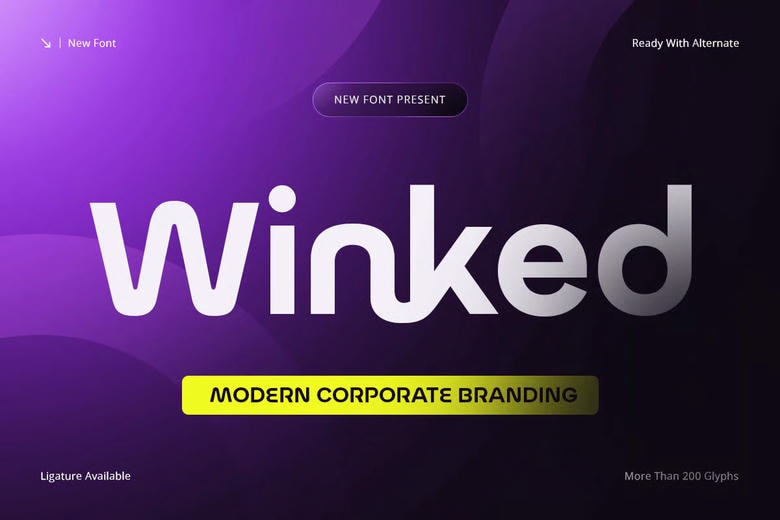
Winked Font
Winked Font is a modern display typeface made to help businesses build a strong, trustworthy, and up-to-date brand image. It takes inspiration from today’s corporate identity systems and clean business typography, making it a great fit for brands that want clarity, consistency, and professionalism.
Winked features refined letter shapes, balanced proportions, and a modern look, giving your brand a polished appearance. Its clean and flexible design works well for branding, marketing, and corporate materials, making it a strong choice for organizations that want to leave a lasting, professional impression.
Winked Sans Serif Font